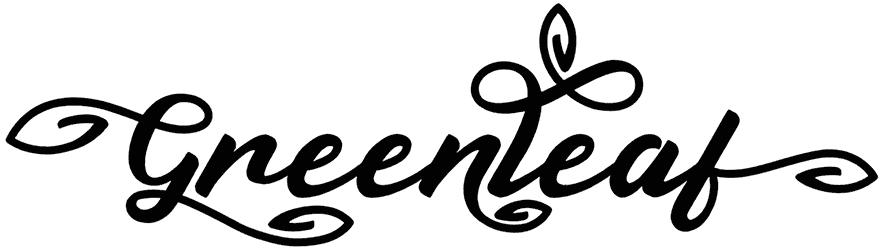
Greenleaf Font
Check out our beautiful script font, Greenleaf. Adding this nature font can enhance your project due to its decorative appearance. They have bold, italic, and connected lines between letters, but don’t include numerals and some punctuation. It might not be easy to read in a long text body. Besides, it’s an excellent choice for posters, cosmetic brands, gifts, logos, and even designing name necklaces.